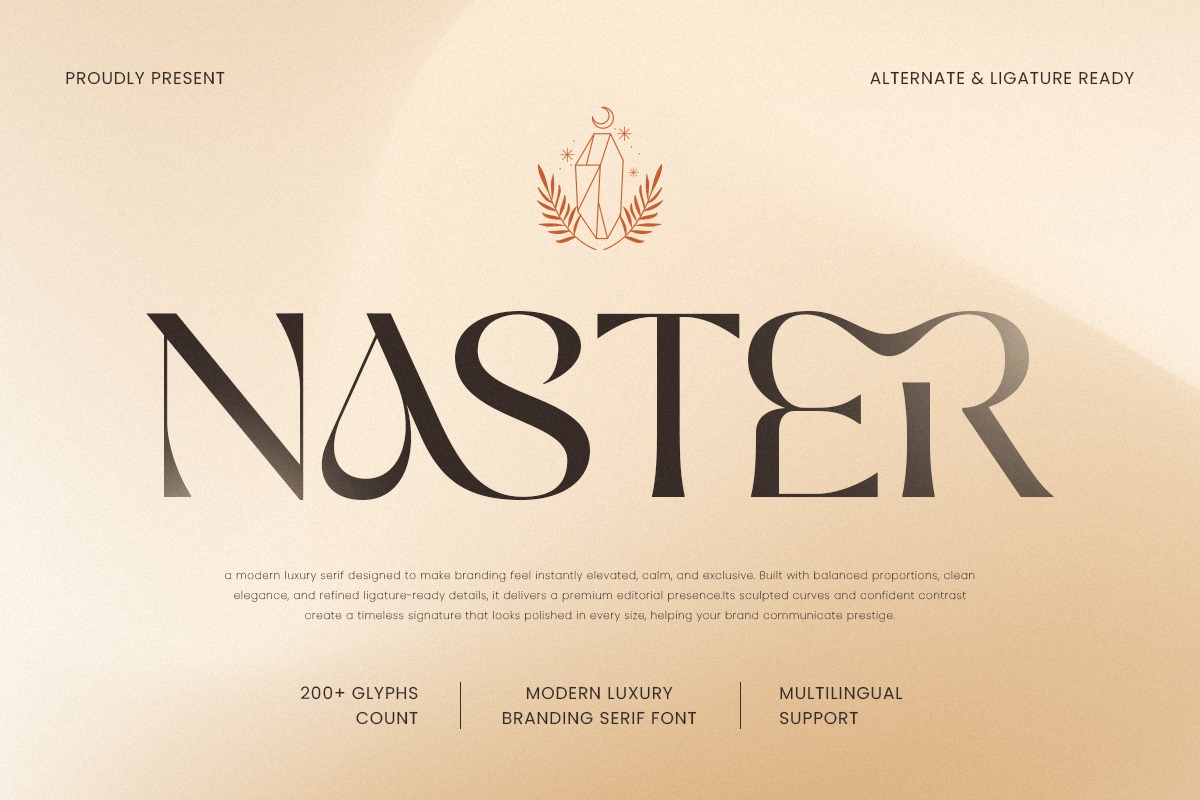
Master – Modern Serif Font
Master – Modern Serif Font is a premium-quality font developed to enhance your work with a polished, modern, and visually elevated look. NASTER is a modern luxury branding serif font designed to deliver refined sophistication with a polished contemporary edge. Featuring graceful serif details, balanced proportions, and a confident premium rhythm, this typeface creates a visual tone that feels elegant, stylish, and instantly brand-ready.
Built for high-end branding and editorial typography, NASTER works beautifully across logos, wordmarks, brand identity systems, website headers, magazine layouts, packaging, labels, invitations, signage, presentations, and upscale marketing visuals. Its serif structure keeps every composition clean and readable while adding a luxurious presence across both digital and print design.
Whether you’re building a fashion identity, creating a beauty brand, designing premium packaging, or crafting an editorial concept with modern elegance, NASTER provides a sophisticated serif foundation that makes your typography feel timeless, polished, and unforgettable.